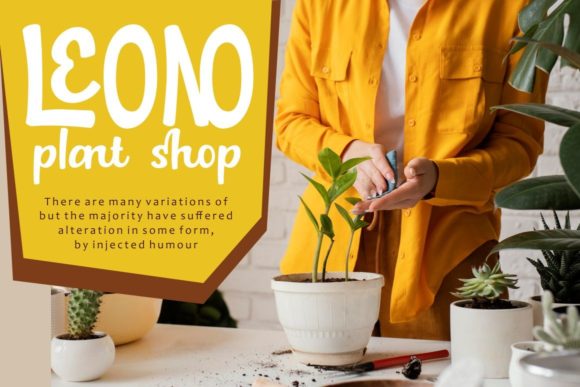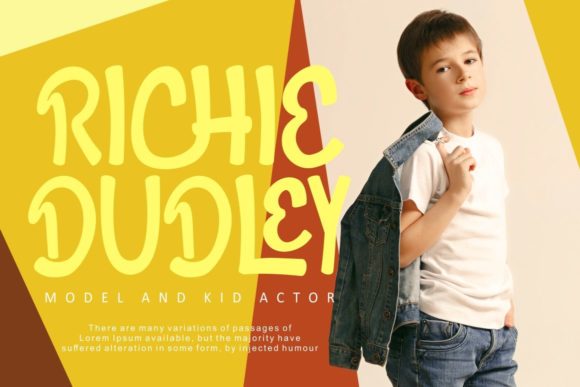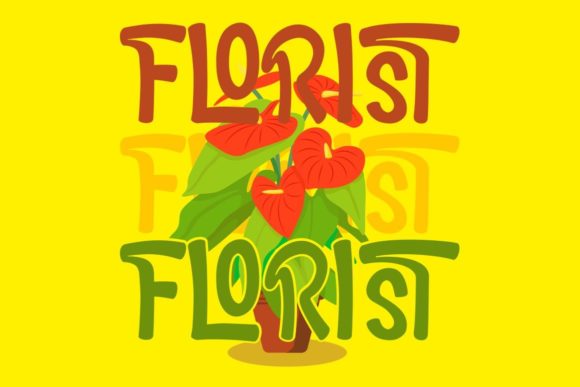
Introduction to Lucky Shirt Font
Remember that moment when a design idea strikes you, and you can’t wait to bring it to life? For designers, it’s a rush of adrenaline that fuels their creative project. Whether you’re working on a new t-shirt design or a sportswear campaign, the right font can make all the difference. That’s where the Lucky Shirt Font comes in – a cool and urban styled display font that’s perfect for your next design adventure.
With its versatility and modern feel, the Lucky Shirt Font is an invaluable design resource for any creative project. Its high-quality design makes it suitable for a wide range of applications, from t-shirts and sportswear to logos and advertisements. Plus, with a transparent background, you can easily integrate it into your design without any distractions.
Key Features of Lucky Shirt Font
- Lucky Shirt Font is a high-quality design resource ideal for creative projects, offering a unique and stylish look.
- Lucky Shirt Font is designed to be versatile and can be used in a wide range of creative projects, from branding and logos to digital art and graphics.
- The font’s unique characteristics, such as its bold and playful style, make it an excellent choice for designers looking to add a touch of personality to their work.
Honest Review: Lucky Shirt Font
As a designer, I’m always on the lookout for high-quality design resources that can elevate my creative projects. Recently, I stumbled upon the Lucky Shirt Font, and I’m excited to share my honest review with you.
- ✨ The font is incredibly versatile, with a range of styles that can suit various design projects.
- ✨ The high quality of the font is evident, with crisp and clear characters that make it a pleasure to work with.
- ⚠️ The font may not be suitable for all design projects, particularly those that require a more formal or traditional look.
- ⚠️ Some users may find the font’s playful nature a bit too whimsical for their taste.
Overall, I’m impressed with the Lucky Shirt Font, and I think it’s a great addition to any designer’s creative arsenal. While it may not be perfect for every project, its high quality, versatility, and free download make it an excellent choice for designers looking to add a bit of flair to their work.
Tips for Getting the Most Out of Lucky Shirt Font
For the best results, use Lucky Shirt Font with a transparent background to create a modern and sleek look.
Lucky Shirt Font is perfect for a variety of creative projects, including:
1. Social media graphics
2. Business cards
3. Brochures
4. Flyers